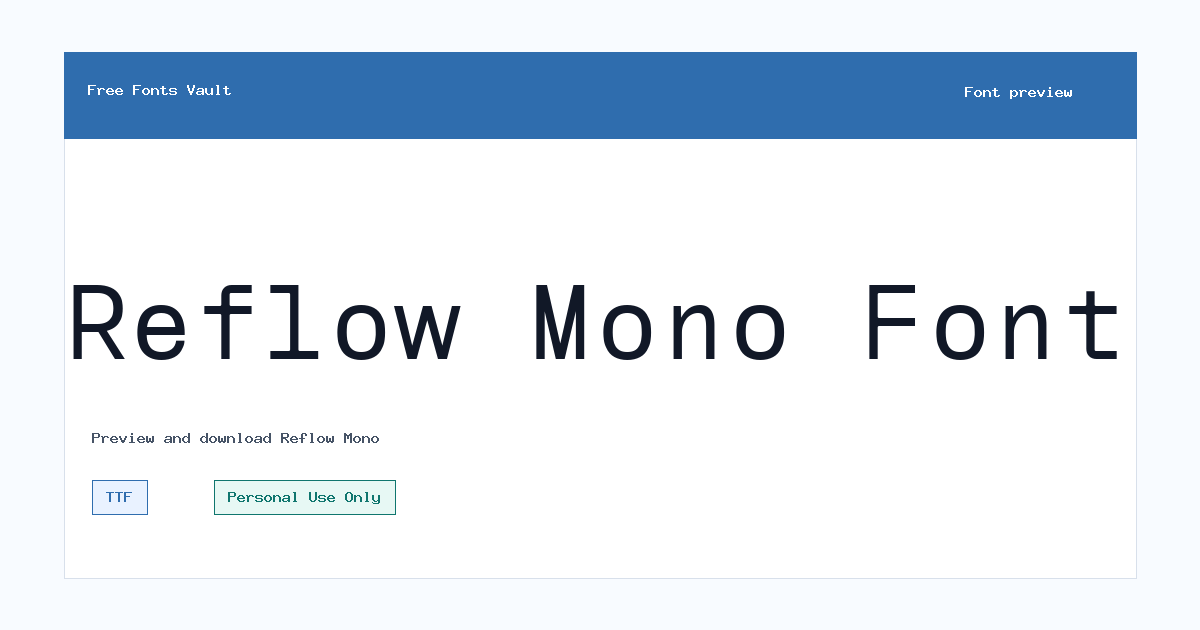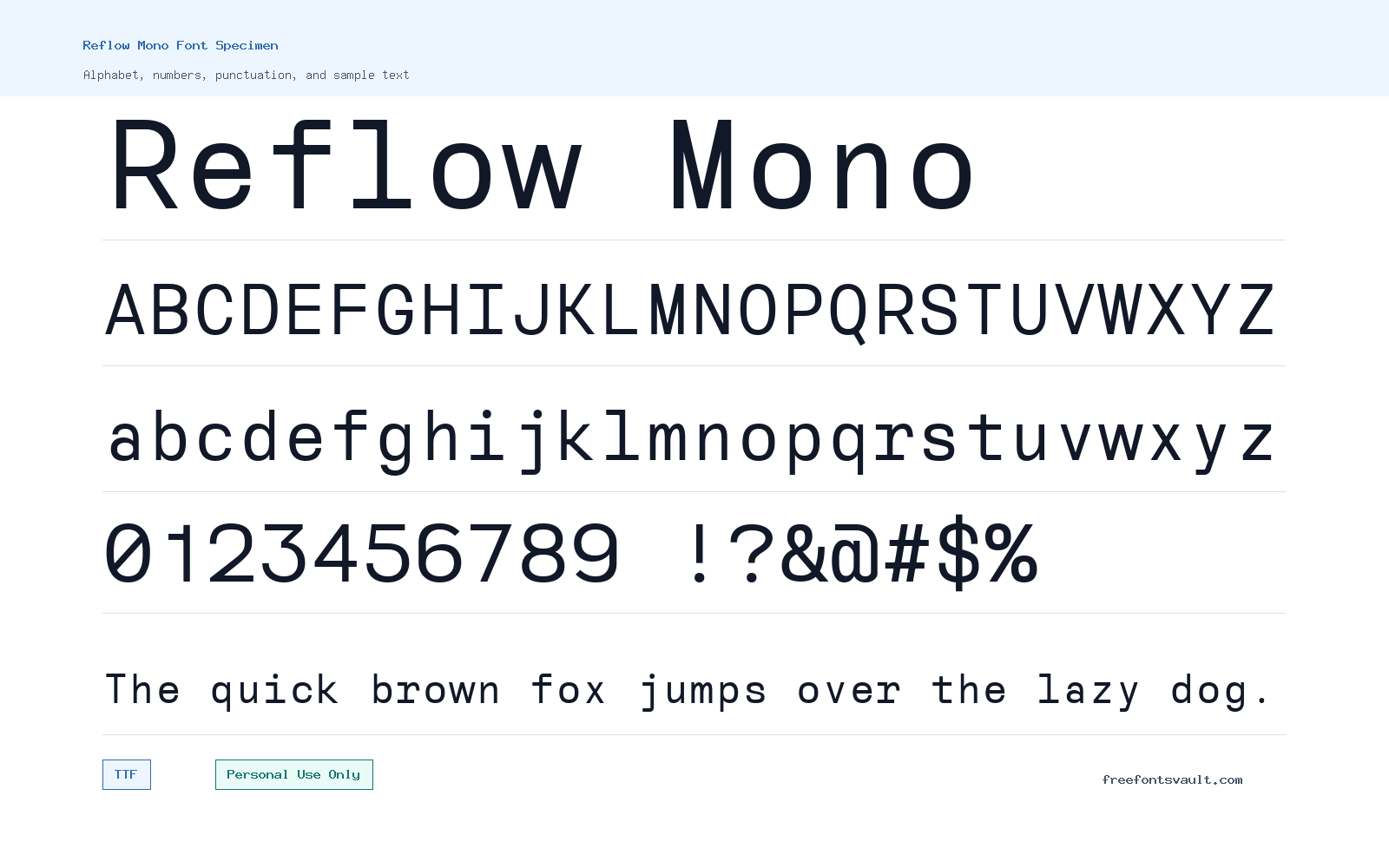
Reflow Mono
Reflow Mono is a monospaced sans serif font for visitors who want a clean, even-width style for testing headings, labels, display text, and layout mockups.
About Reflow Mono
Reflow Mono keeps each character on a fixed width, giving text a steady rhythm and a technical, organized look. That makes it useful when you want a font that feels structured without becoming too decorative. The demo file is a regular-weight TTF, so it is easy to test in most design apps, browser previews, and desktop font managers. Because only the regular style is listed, it is best to preview your exact wording before building a design around multiple weights or complex emphasis.
Use Reflow Mono for short and medium text where spacing is part of the style: poster lines, coding-inspired graphics, UI labels, badges, packaging mockups, editorial pull quotes, social posts, and clean title treatments. Monospaced fonts can look sharp in small doses, but they are not always the easiest choice for long paragraphs because the fixed spacing may feel slower to read. Try it in the font preview with uppercase, lowercase, numbers, punctuation, and the exact phrase you plan to use. For pairing, keep the second font simple: a neutral sans serif can handle body copy, while Reflow Mono can carry the title, caption, or accent line.
- Monospaced sans serif structure with fixed-width character spacing
- Headlines, labels, badges, short captions, and coding-inspired design accents
- Personal posters, social graphics, mockups, UI experiments, and display typography tests
What kind of font is Reflow Mono?
Reflow Mono is listed as a monospaced sans serif font. Its fixed-width spacing gives text a neat, technical feel.
Is Reflow Mono good for body text?
It can work for short blocks, captions, and interface-style text, but long reading passages should be tested carefully because monospaced spacing can feel less comfortable than a regular proportional text font.